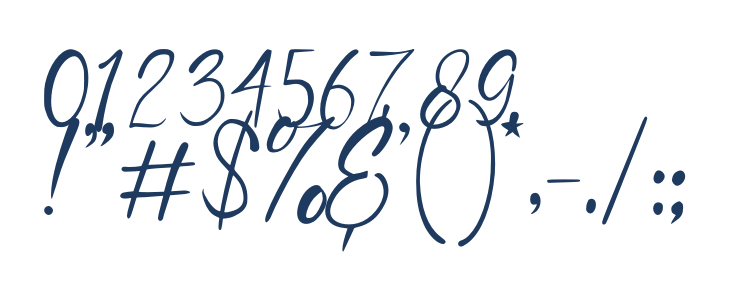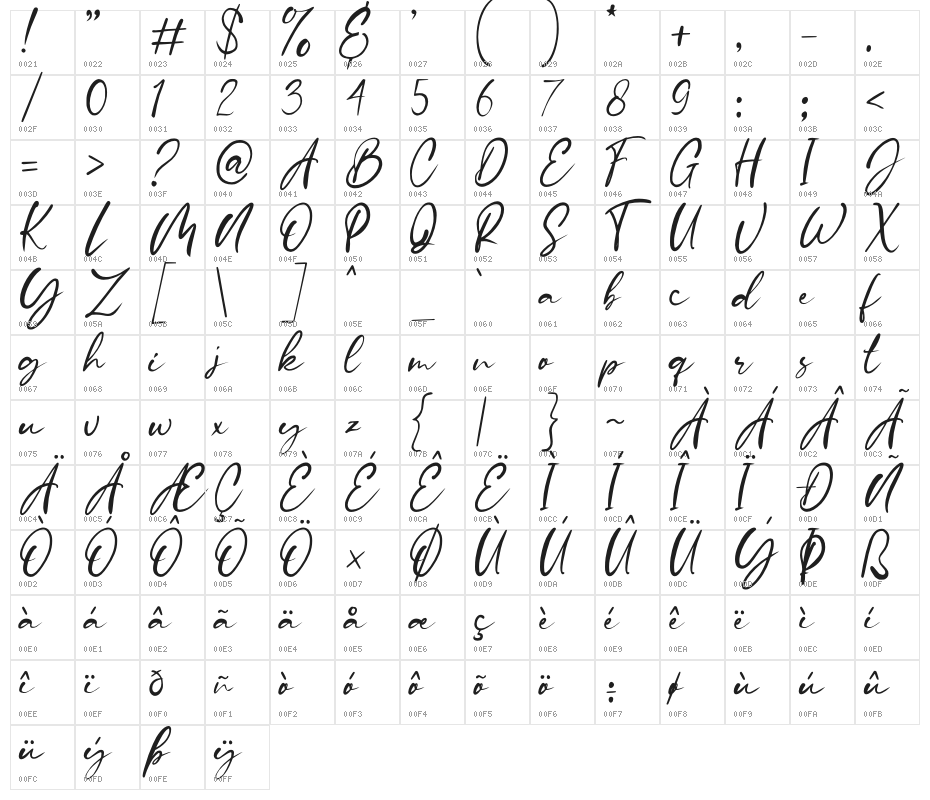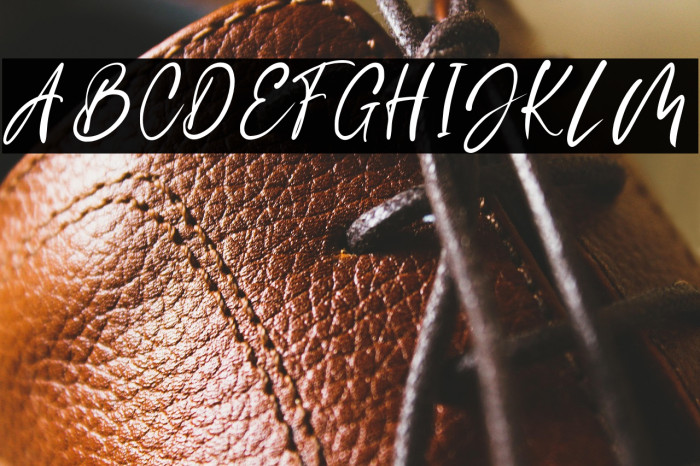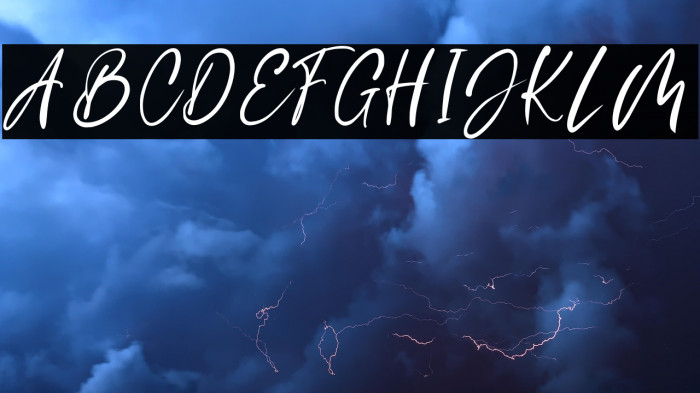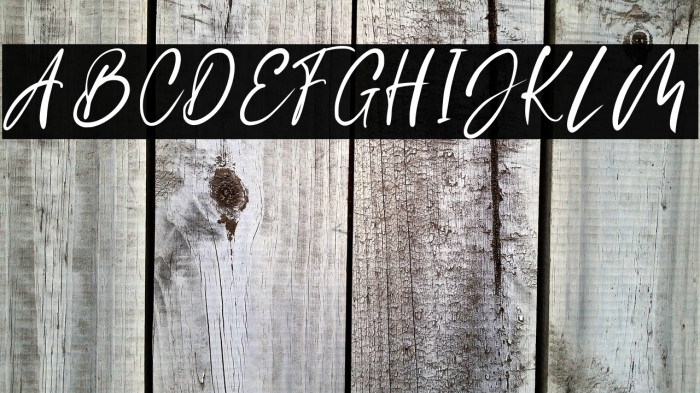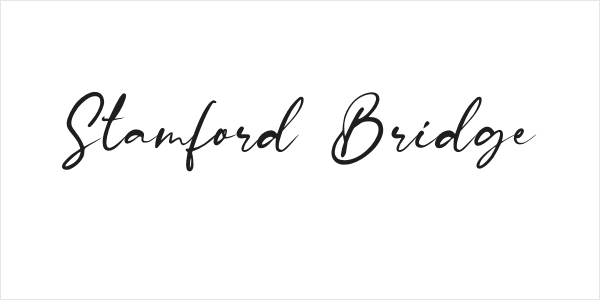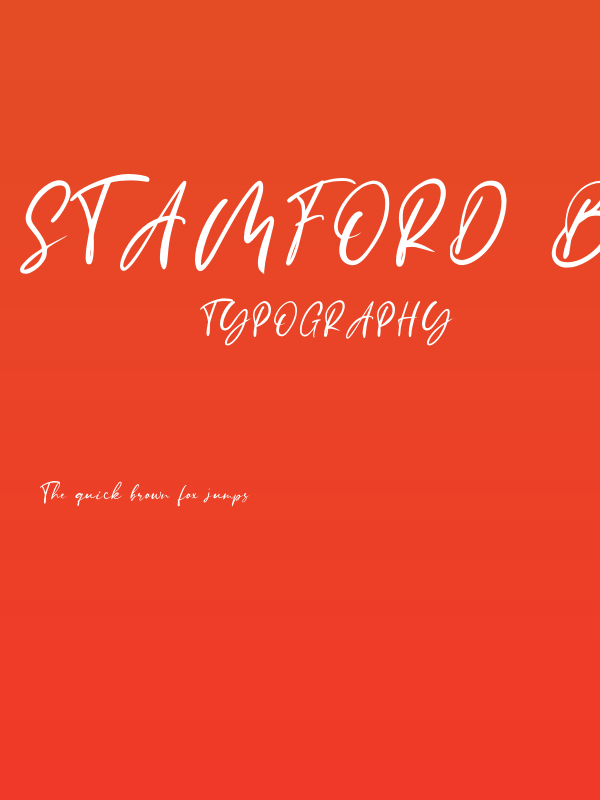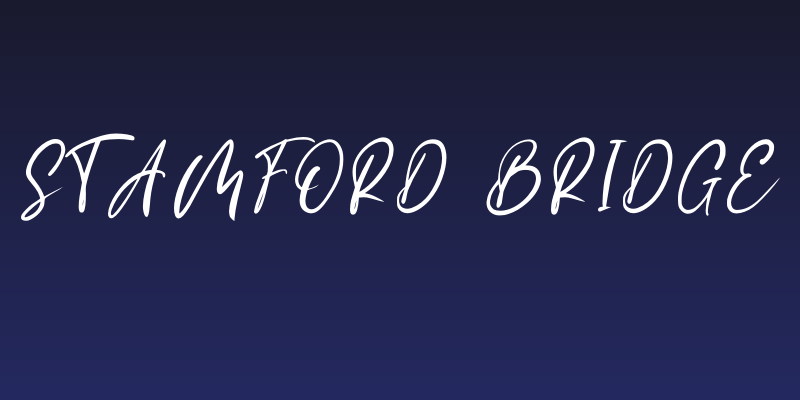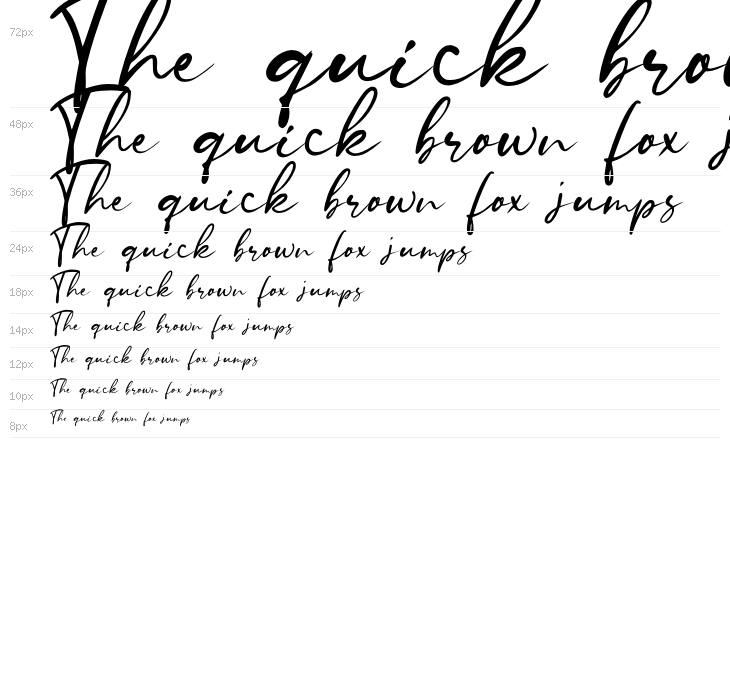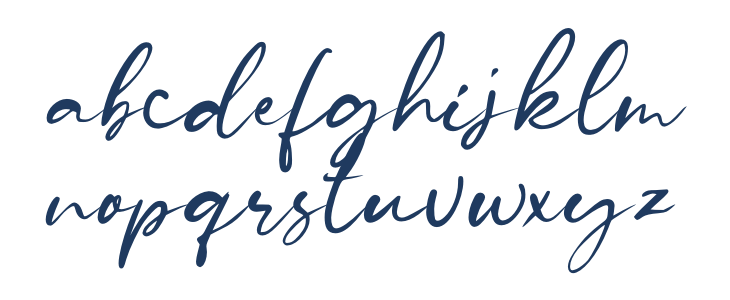
Stamford Bridge Font
Stamford Bridge Description
This font exudes a lively and dynamic character with its fluid, cursive style. The letters are elegantly connected, creating a sense of movement and grace. The uppercase characters are bold and slightly slanted, while the lowercase letters maintain a consistent flow, enhancing readability. The numerals are distinct and well-proportioned, complementing the overall aesthetic. Special characters are crafted with the same attention to detail, ensuring a cohesive look throughout. This font is perfect for projects that require a personal touch, such as invitations, greeting cards, or branding materials.